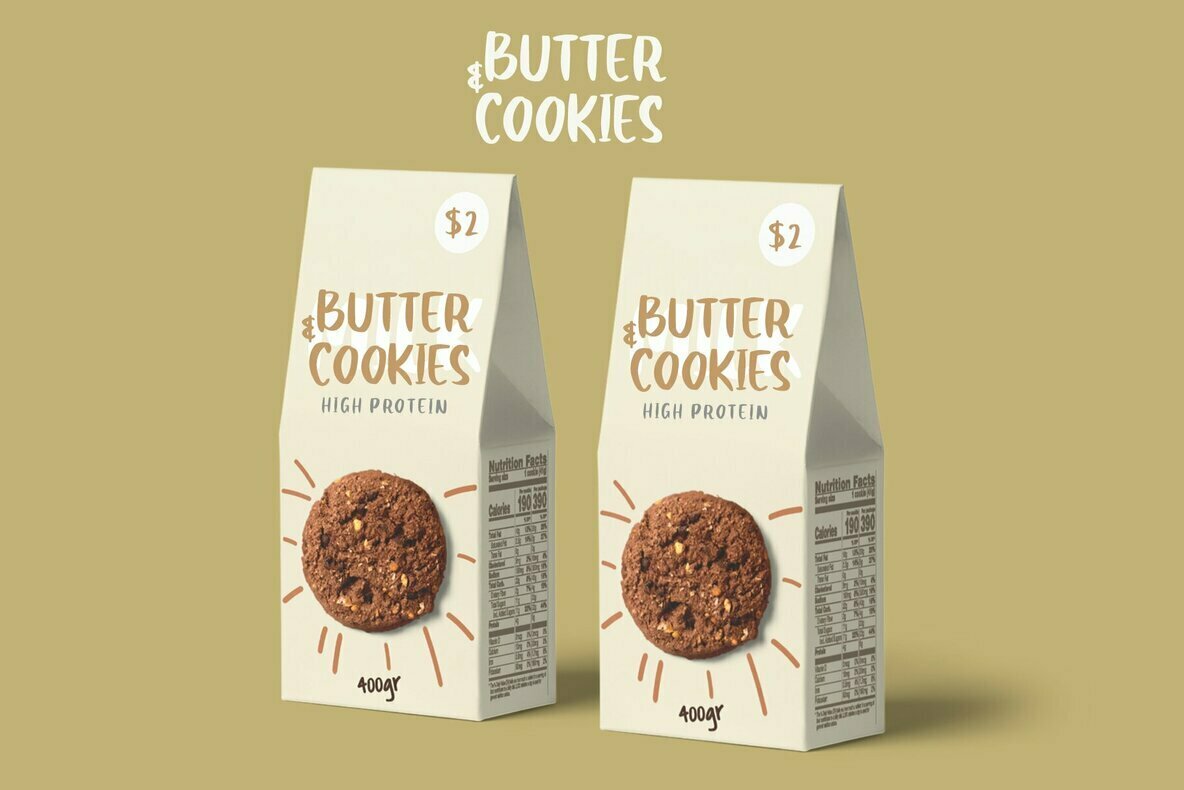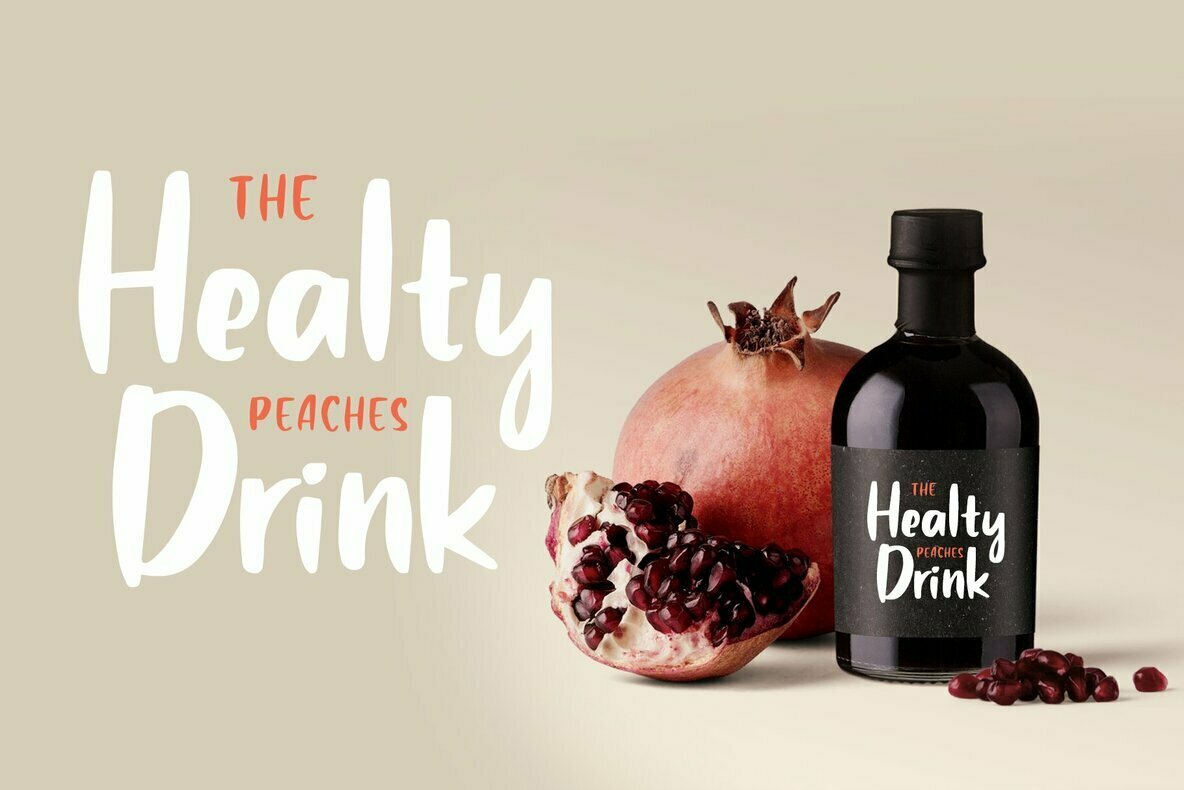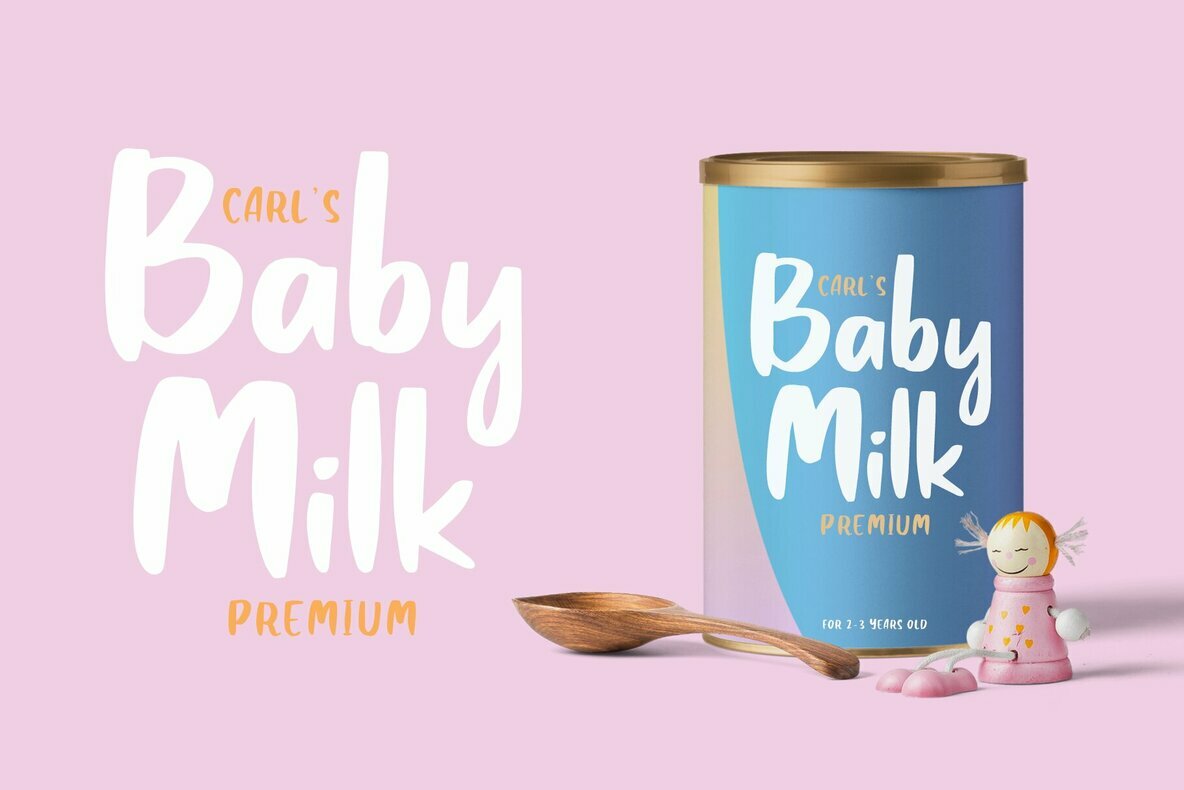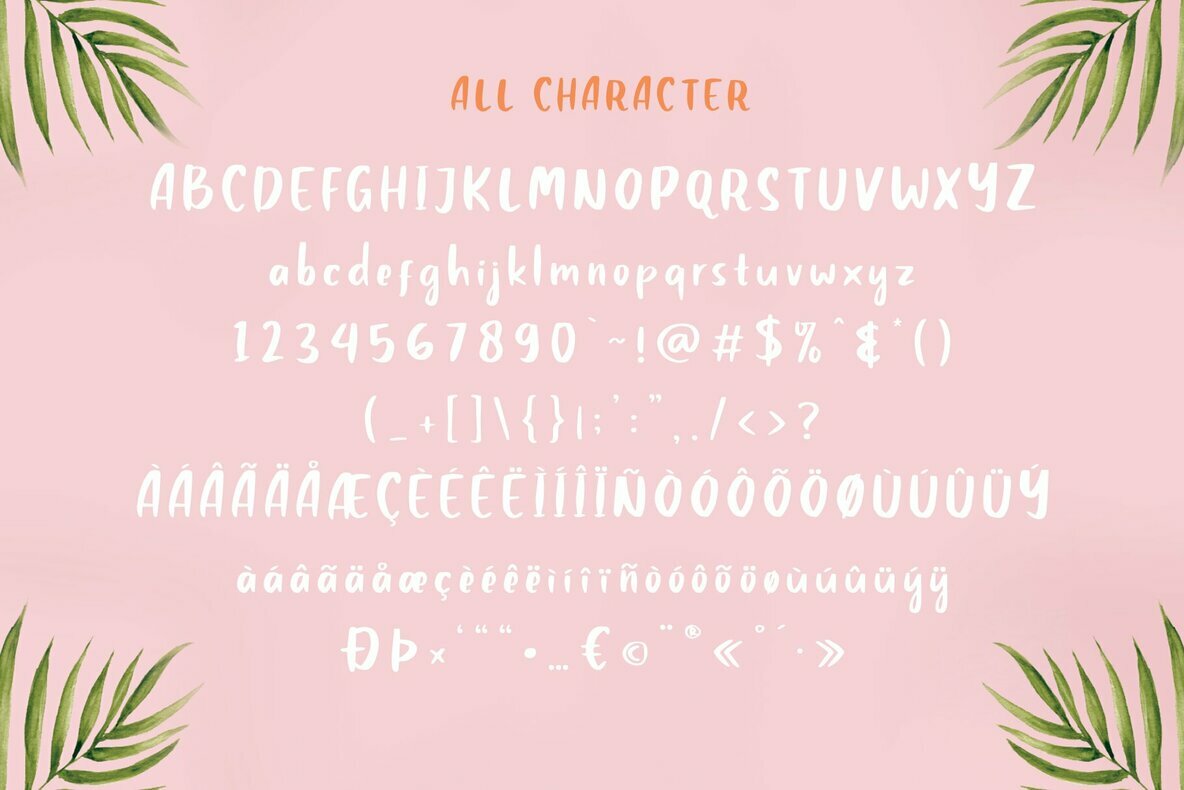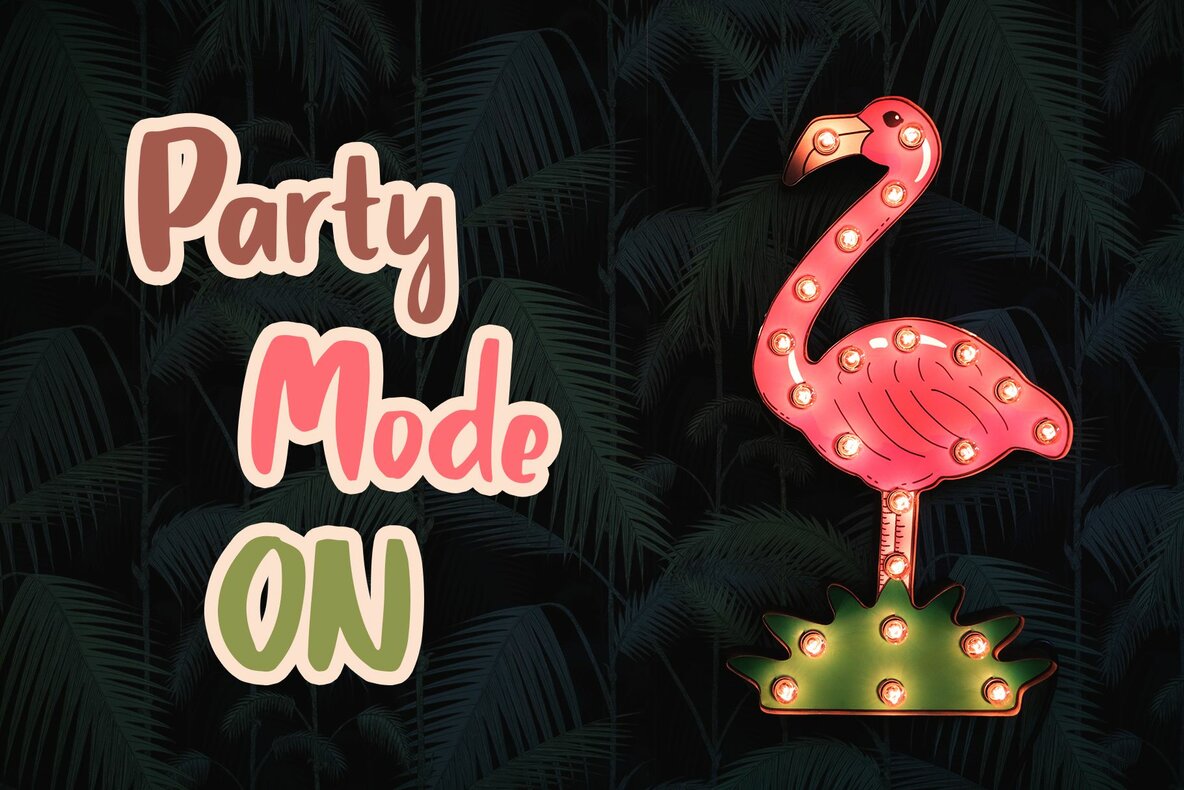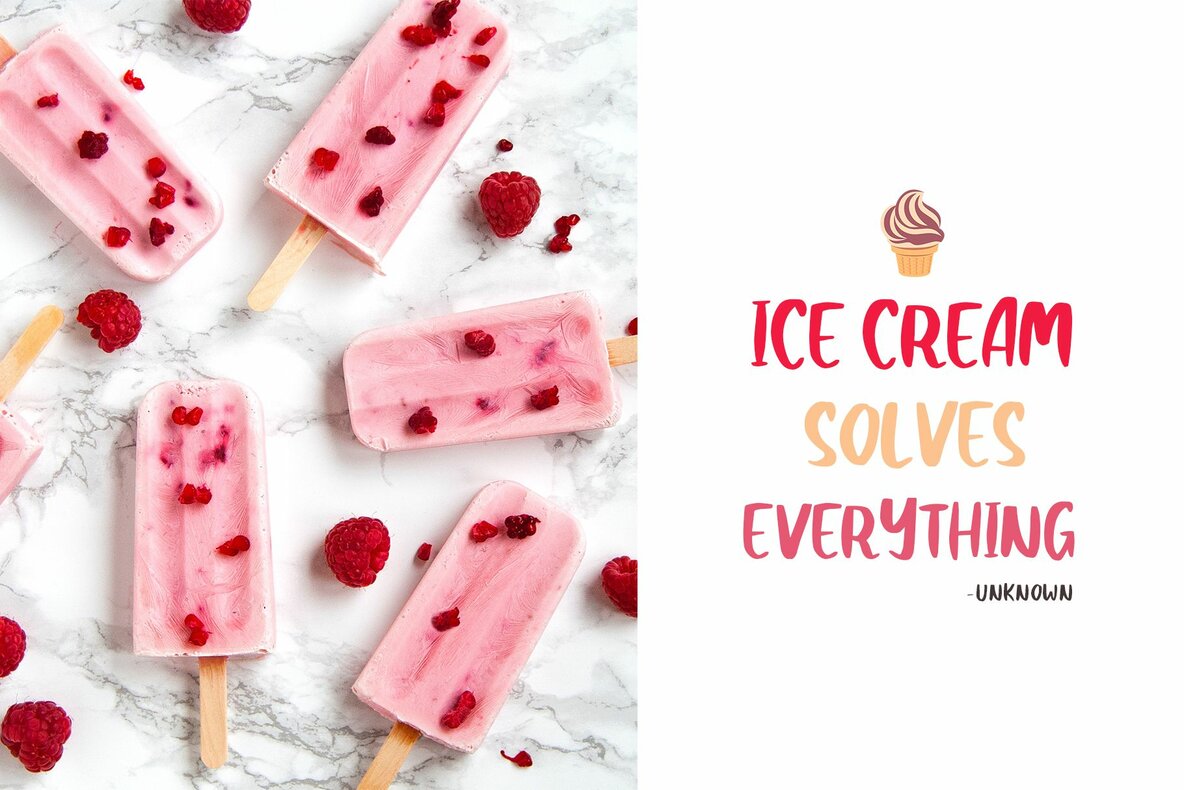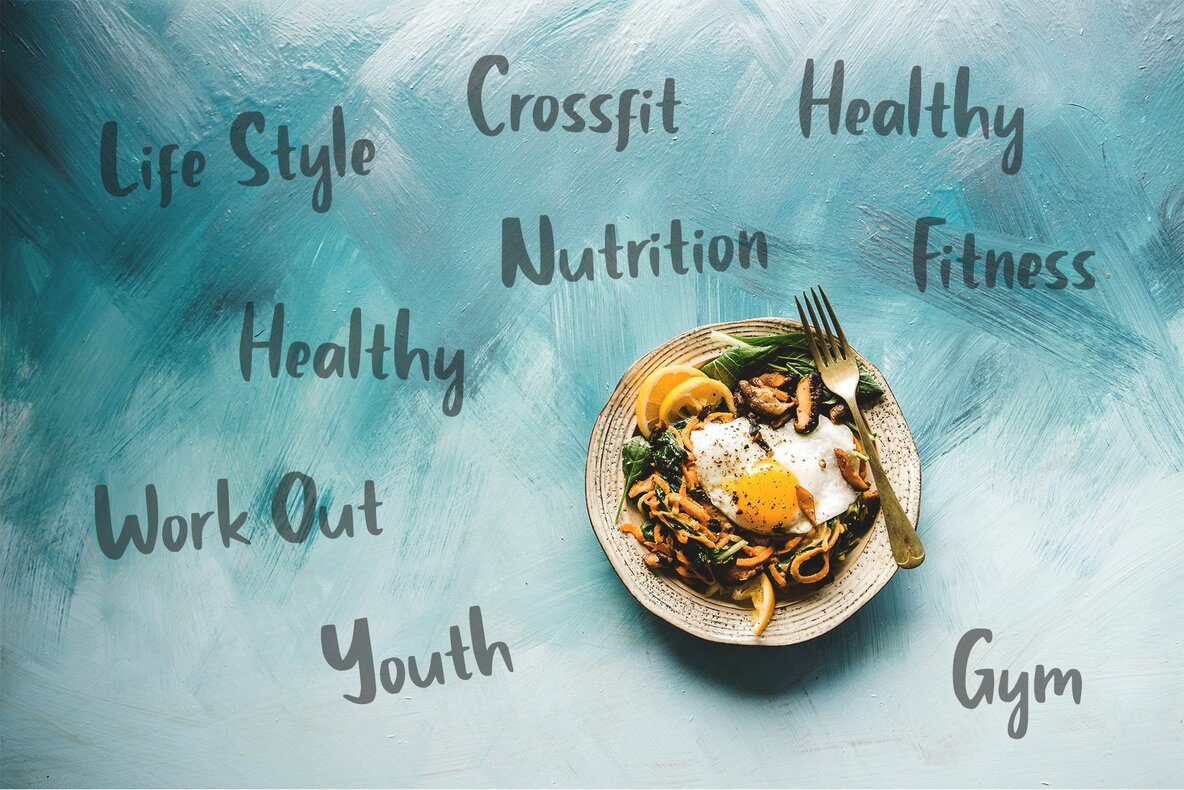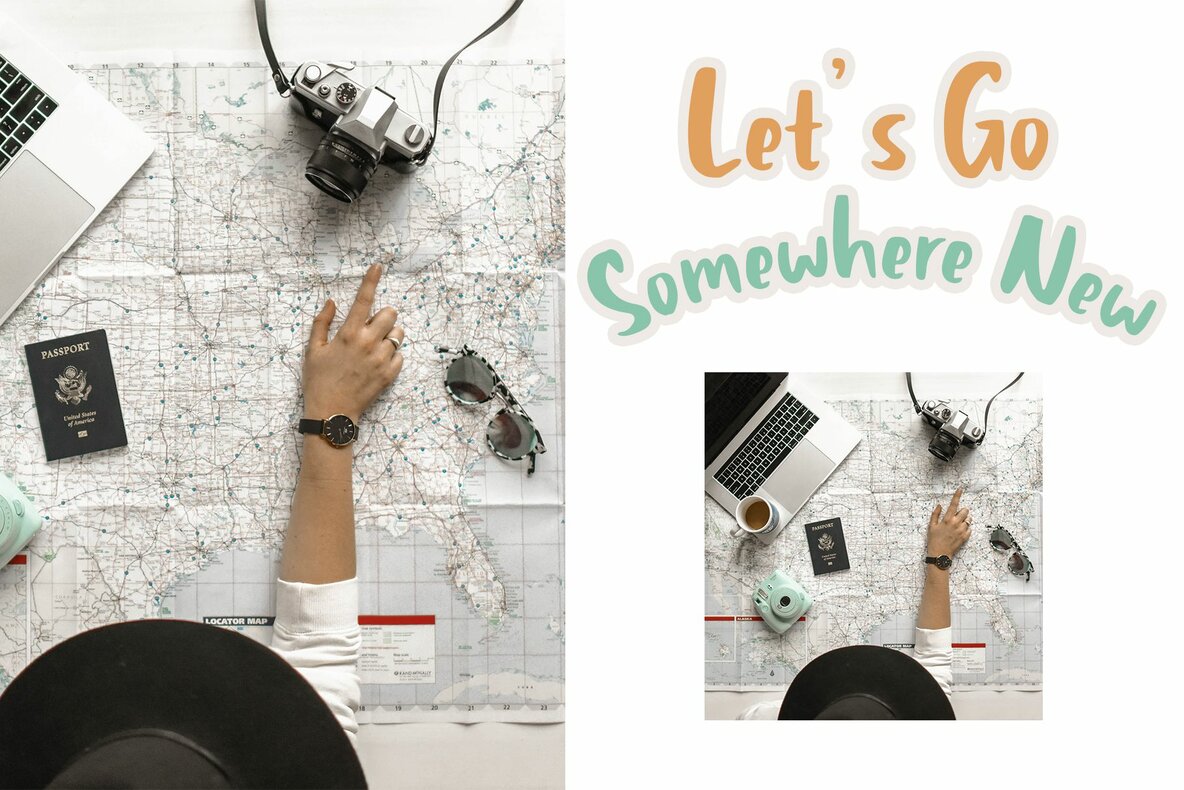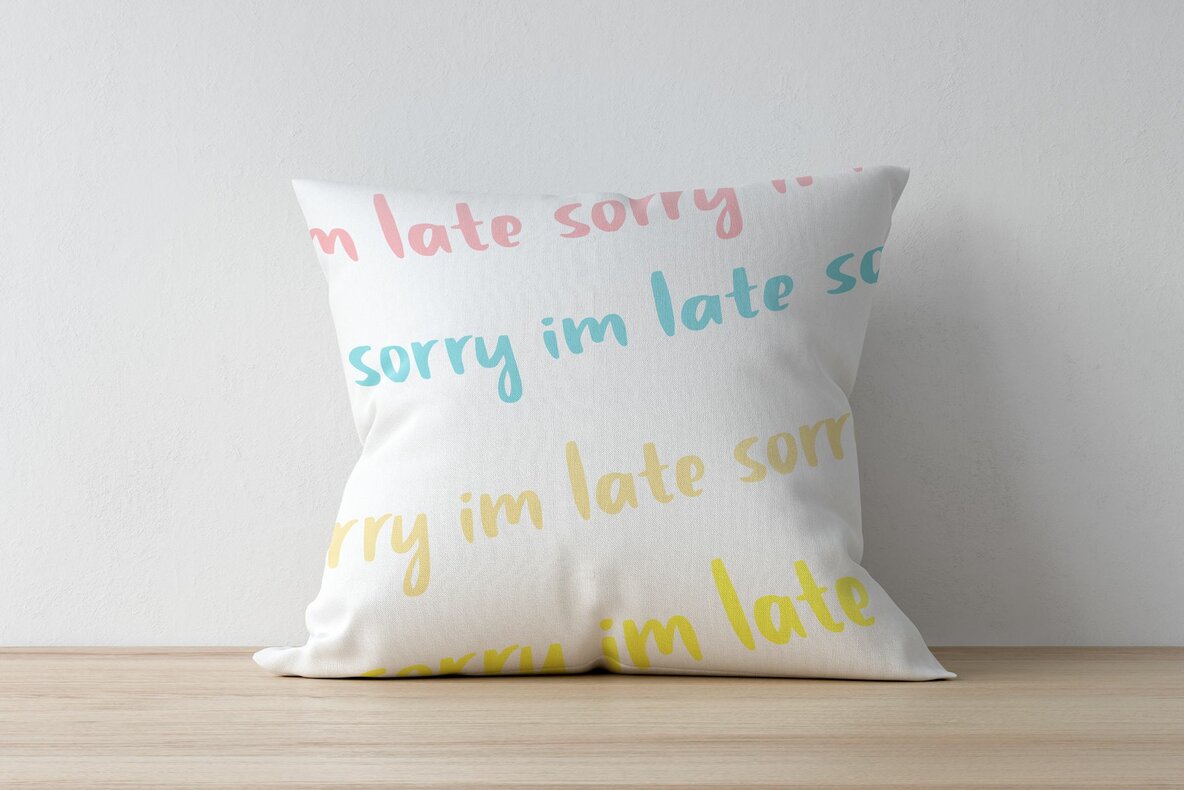
Claudey Font
Claudey - Handwritten Font is an handwritten script font based on the expression of real handwriting, lets you transform type into an exciting and beautiful piece of work. The irregular, hand-lettered look adds a real human touch to things and comes along with a lot of loving details. Combine all font-styles the way you want, add some ornamental swashes or banners and even a single word becomes magnificent.
Claudey - Handwritten Font has lots of alternates that gives you possibility to build your text almost like handwriting with all the charming imperfections and variations that a real handwriting has. Bravely will work perfectly for fashion, e-commerce brands, trend blogs, wedding boutiques or any business that wants to appear upscale and chic.
- Upper Case & Lowercase
- Stylistic Alternates
- Standart Ligatures
- Numerals & Punctuations (OpenType Standard)
- Accents (Multilingual characters)